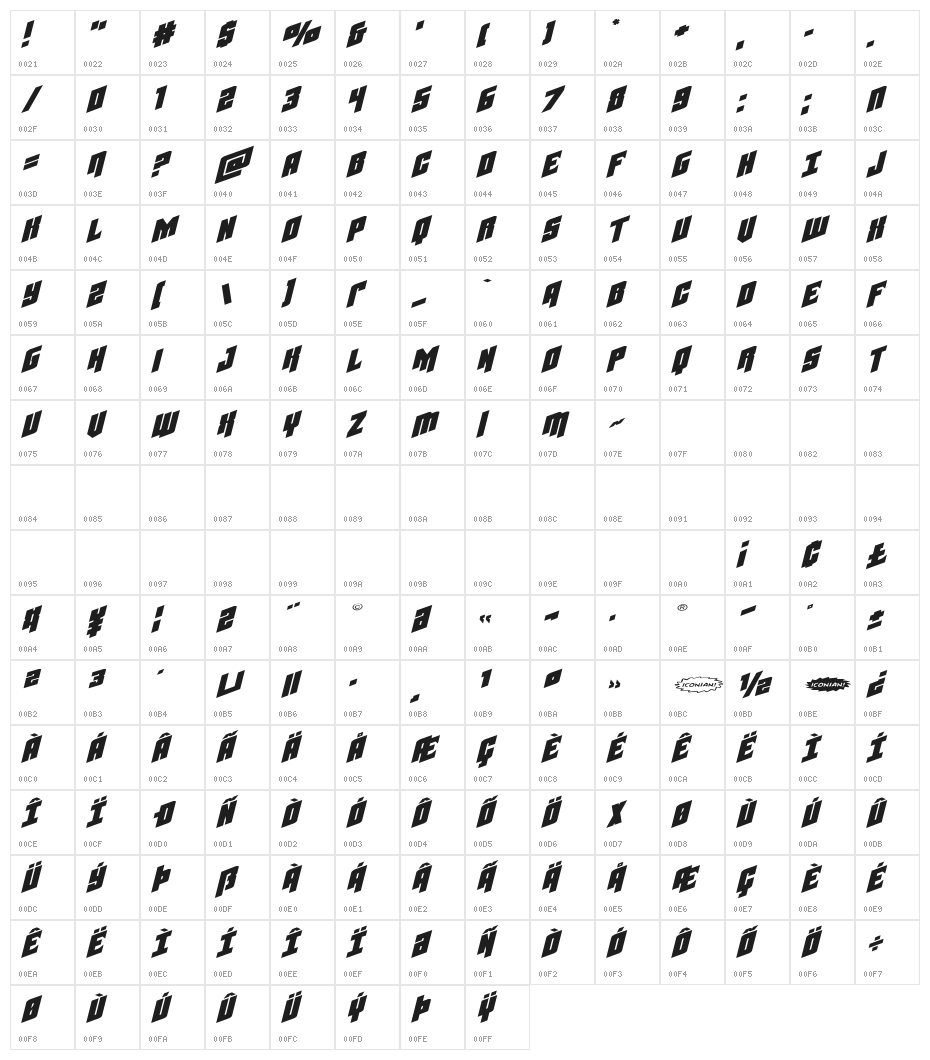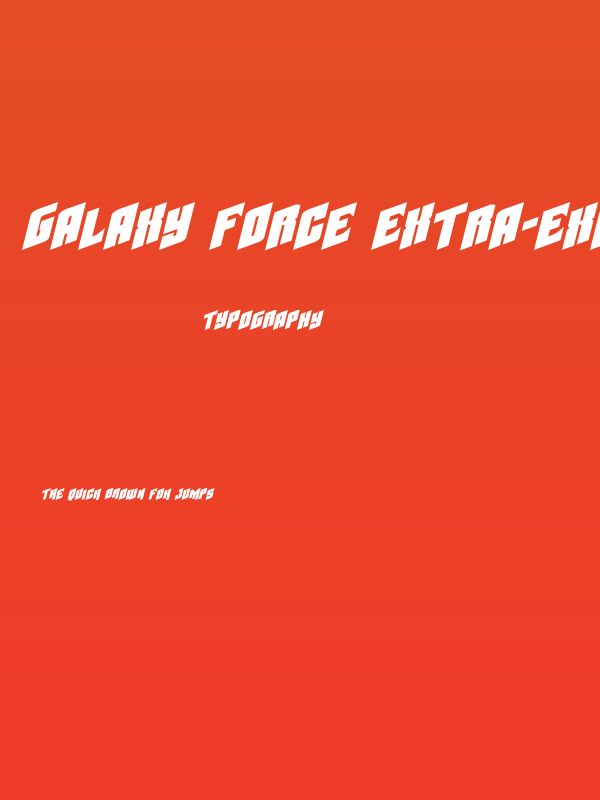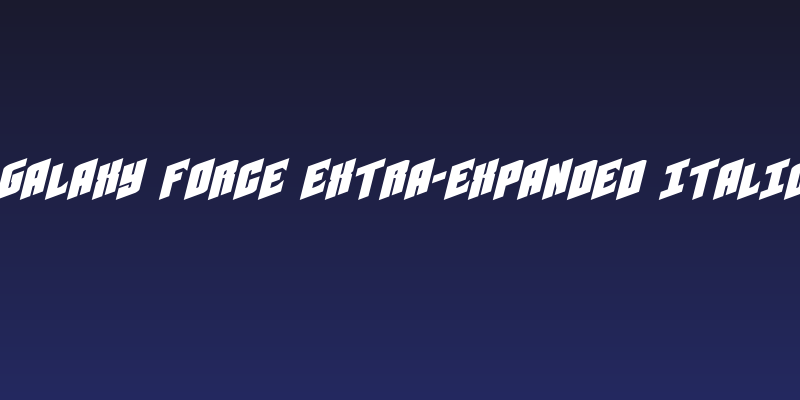
Galaxy Force Extra-Expanded Italic Font
Galaxy Force Extra-Expanded Italic Description
This font features a bold, dynamic style with a futuristic and aggressive appearance. The characters are sharply angled and italicized, giving a sense of movement and speed. The expanded width of the letters enhances its boldness, making it stand out prominently. The strokes are thick and consistent, providing a high contrast that emphasizes each character's unique shape. This font is particularly suitable for projects that require a strong, impactful visual presence, such as in sci-fi themes, gaming titles, or action-oriented branding.
| Overall Style | Futuristic, Dynamic |
| Proposed Projects | Ideal for sci-fi themes, gaming titles, action movie posters, and dynamic branding. |